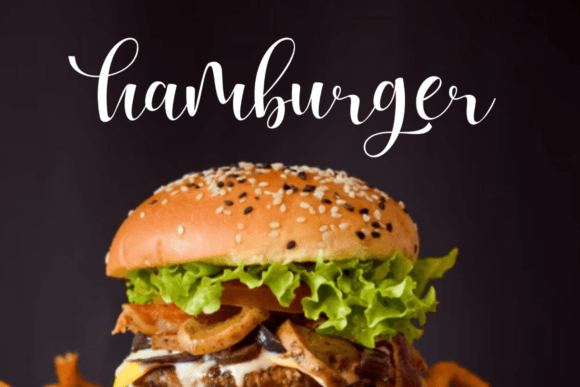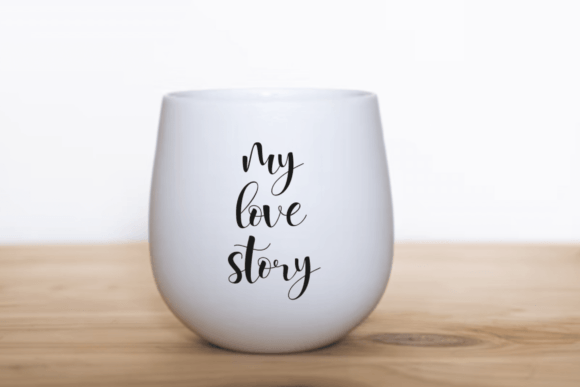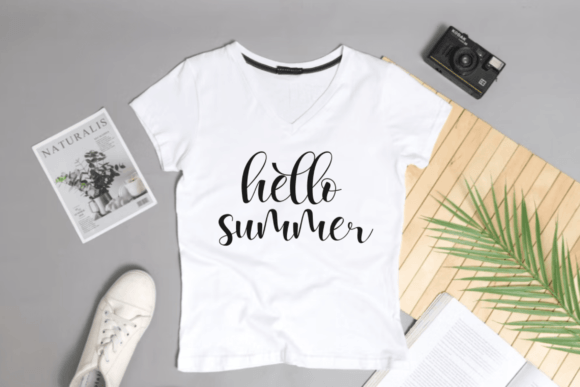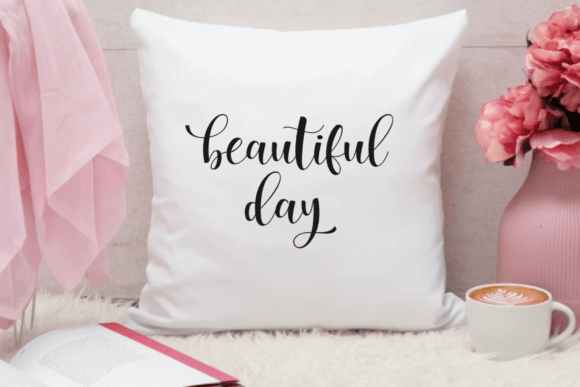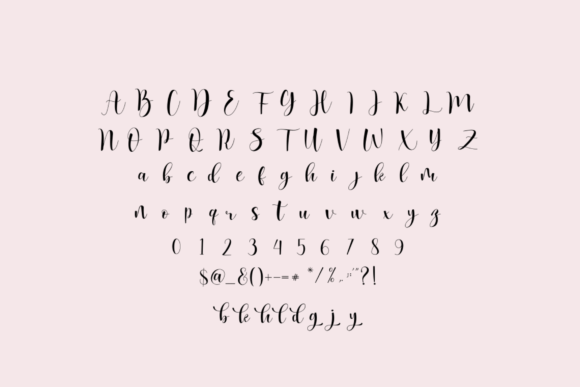
Bagubar Font
Introducing Bagubar: A Bold and Authentic Handwritten Font
Bagubar is a striking handwritten font known for its bold and genuine look. This versatile typeface is perfect for various branding projects, including logo design, t-shirt printing, and export materials. With its bold style, Bagubar is carefully made to create a strong visual impact across many different uses.
Key Features of Bagubar
• Strong Appearance: Bagubar’s most notable feature is its bold handwritten style. This gives the font a commanding presence that grabs attention and leaves a lasting impression.
• Versatility: The font’s design allows it to work well in many different contexts. This makes it a valuable tool for various creative projects, whether digital or print.
• Authenticity: Bagubar has a genuine quality that connects with viewers. This authenticity helps create designs that feel more personal and relatable.
How to Use Bagubar
Logo Design
For logo design, Bagubar offers a bold and eye-catching choice. Its authentic handwritten look is ideal for creating logos that are not only visually striking but also convey trust and genuine character. This unique touch can help set your brand apart in a crowded market.
T-Shirt Printing
Bagubar’s boldness makes it an excellent choice for t-shirt designs. It demands attention and makes a strong statement, perfect for conveying powerful messages or creating designs that resonate with a bold audience. Moreover, the font’s handwritten style adds a personal touch to clothing designs, making them feel more authentic and appealing to customers.
Export Materials
In export projects, Bagubar’s authenticity and strong handwritten appearance help build a strong connection with customers. It’s particularly effective for product labels, packaging design, and promotional materials. By using Bagubar, you can add a sense of authority and genuine appeal to your export efforts.
The Versatility of Bagubar
Bagubar’s versatility extends beyond these specific uses. Its bold presence ensures it stands out in various contexts, including:
• Website headers
• Social media graphics
• Advertising campaigns
• Book covers
• Product packaging
This flexibility makes Bagubar a highly valuable asset for designers and brands looking for a consistent yet impactful visual identity across different media.
Why Choose Bagubar?
Bagubar is more than just a font; it’s a dynamic design tool that combines boldness with authenticity. Its powerful handwritten style makes it an excellent choice for a wide range of creative projects. By using Bagubar, designers and brands can enhance their creative work, adding a bold and genuine character that connects with audiences.
The font’s ability to create a strong visual impact while remaining readable makes it particularly suitable for headlines and short text blocks. Its distinctive style can help your message stand out in today’s fast-paced visual world, making it a valuable tool for capturing attention.
Furthermore, Bagubar’s handcrafted feel adds a human touch to digital designs, bridging the gap between technology and personal connection. This quality is especially valuable in an era where consumers seek authenticity and personal engagement from brands.
Whether you’re working on branding projects, t-shirt designs, export materials, or any other creative endeavor, Bagubar offers the versatility and impact needed to make your designs stand out. Its unique blend of strength and authenticity makes it a valuable addition to any designer’s toolkit, capable of bringing a distinctive and memorable quality to any project it’s used in.
Explore the possibilities with Bagubar and discover how this bold font can transform your design projects. From creating eye-catching logos to designing impactful marketing materials, Bagubar provides the perfect balance of strength and character to elevate your visual communications.